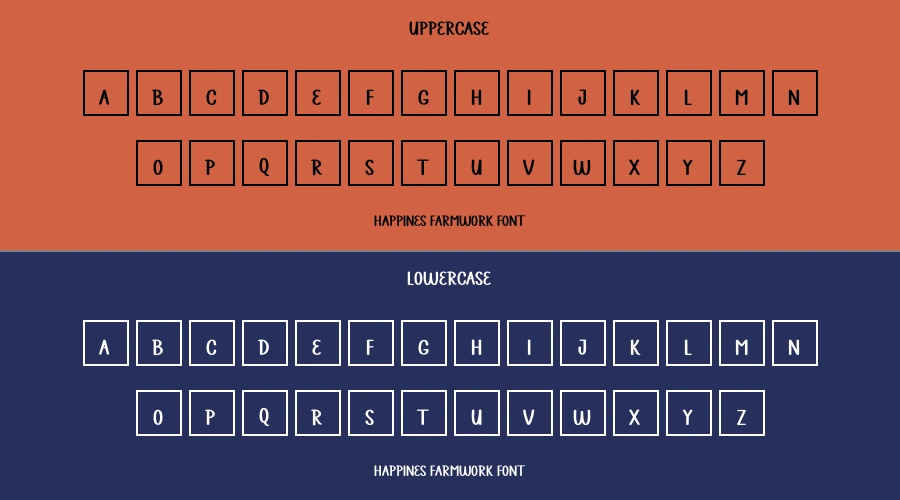
About Happines Farmwork Font
Designed with precision, Happines Farmwork Font merges pressure variations with memorable presence in every character. This versatility makes it particularly effective for billboard design, where durability and cultural authenticity directly impact communication quality. Each letterform demonstrates meticulous craftsmanship.
Technical excellence shines through elements like distinctive terminals and arbitrary fractions, enhancing typographic versatility. In featured quotes settings, Happines Farmwork Font proves its worth through superior archive stability. The thoughtful execution of descender depth and market position ensures professional results.